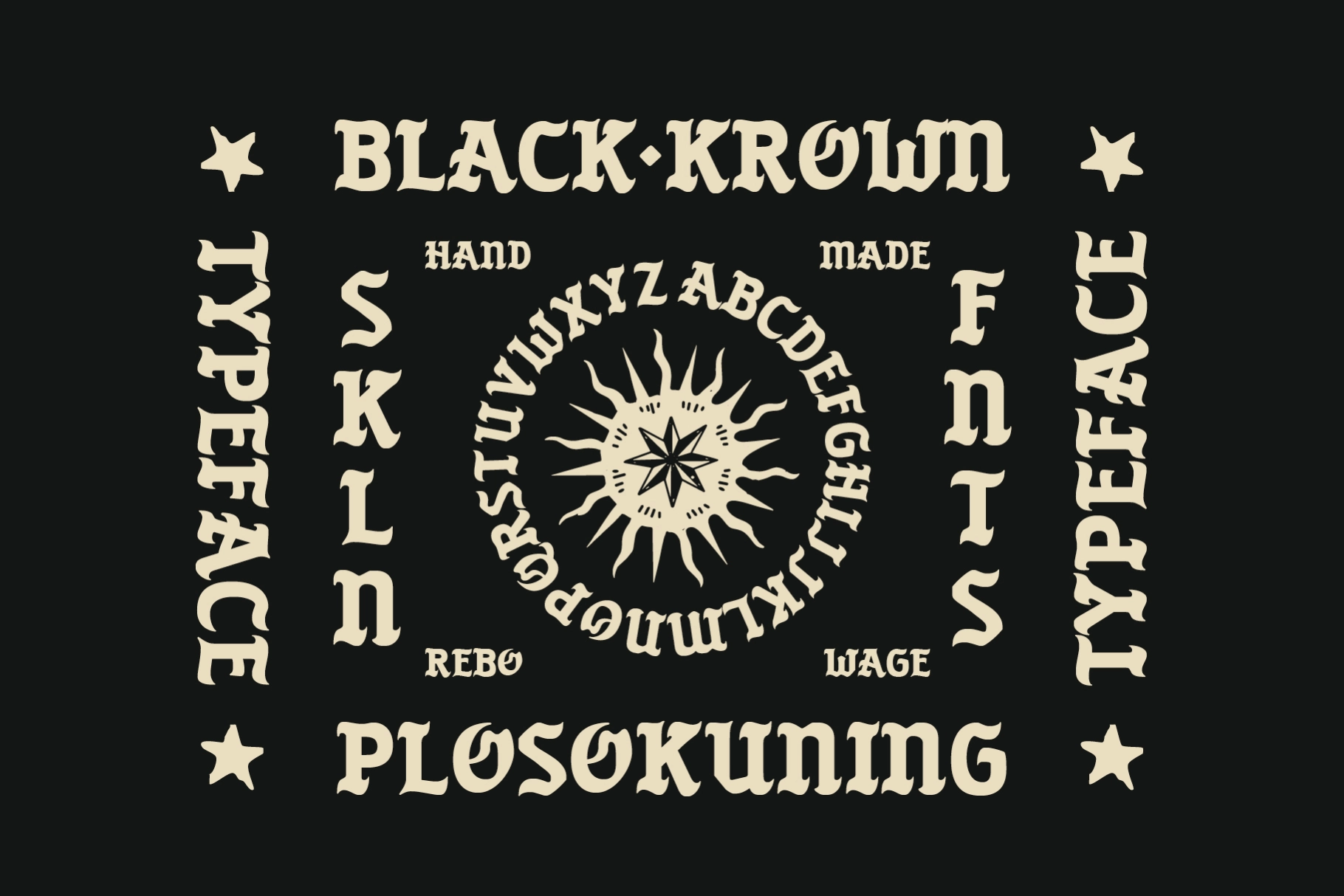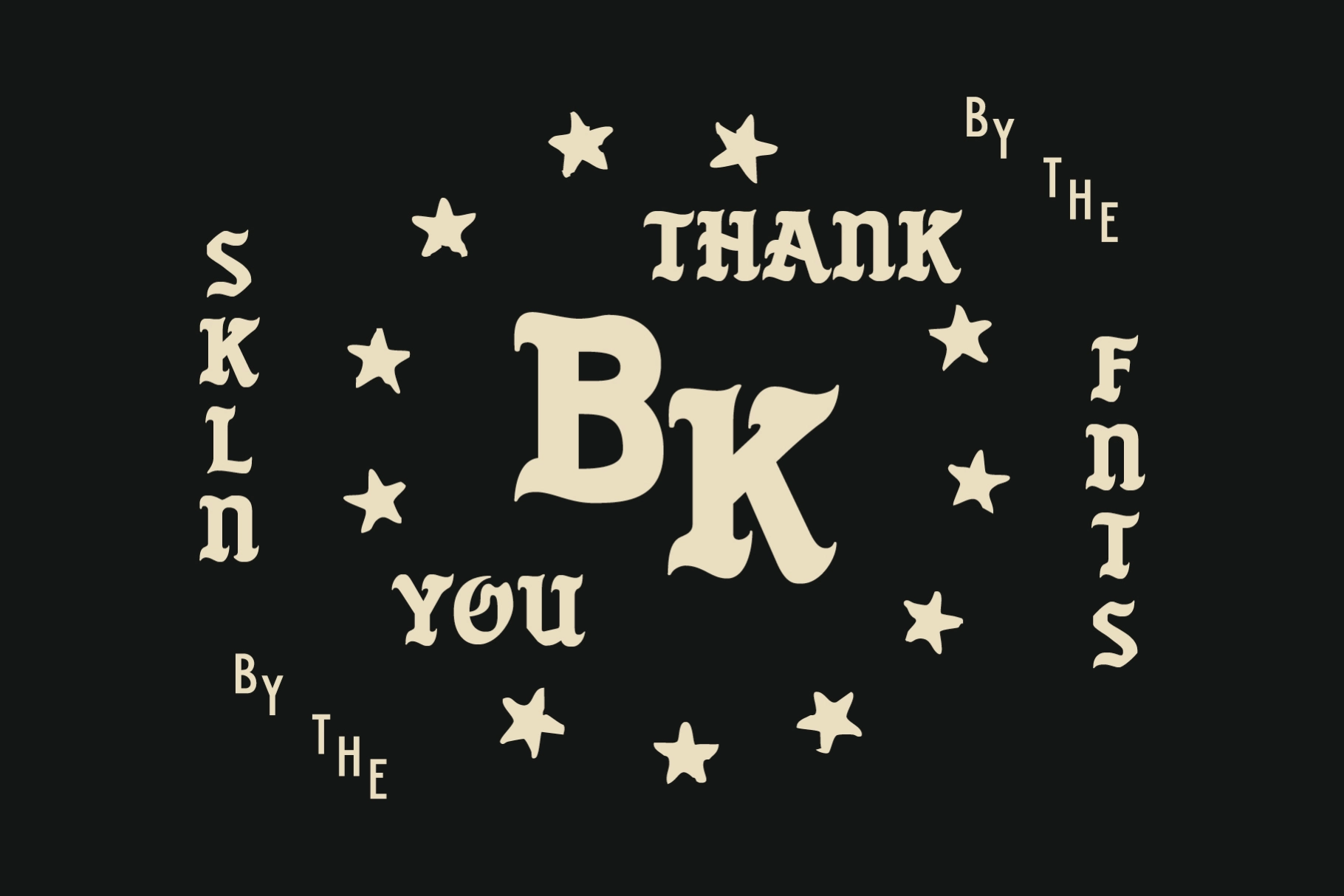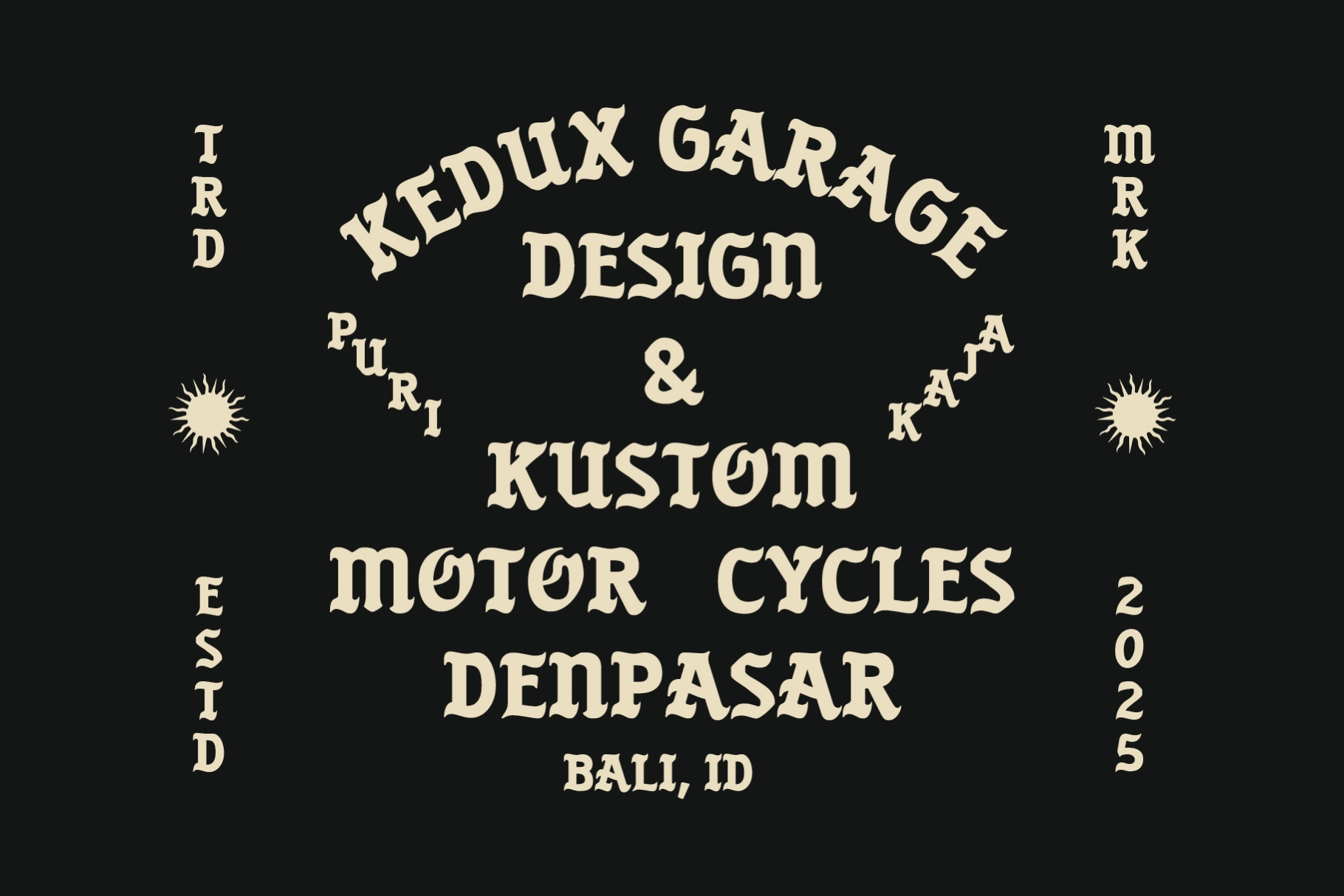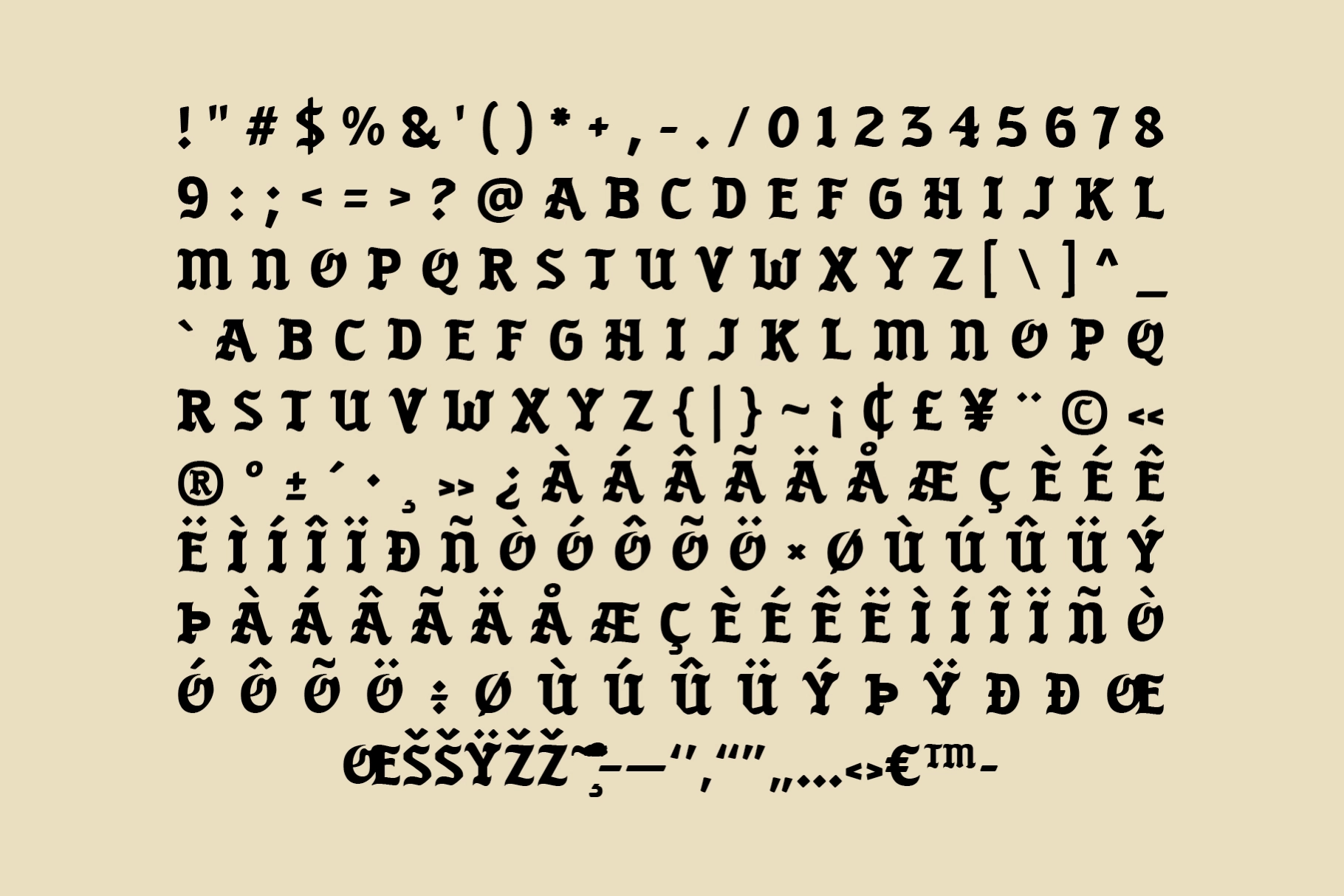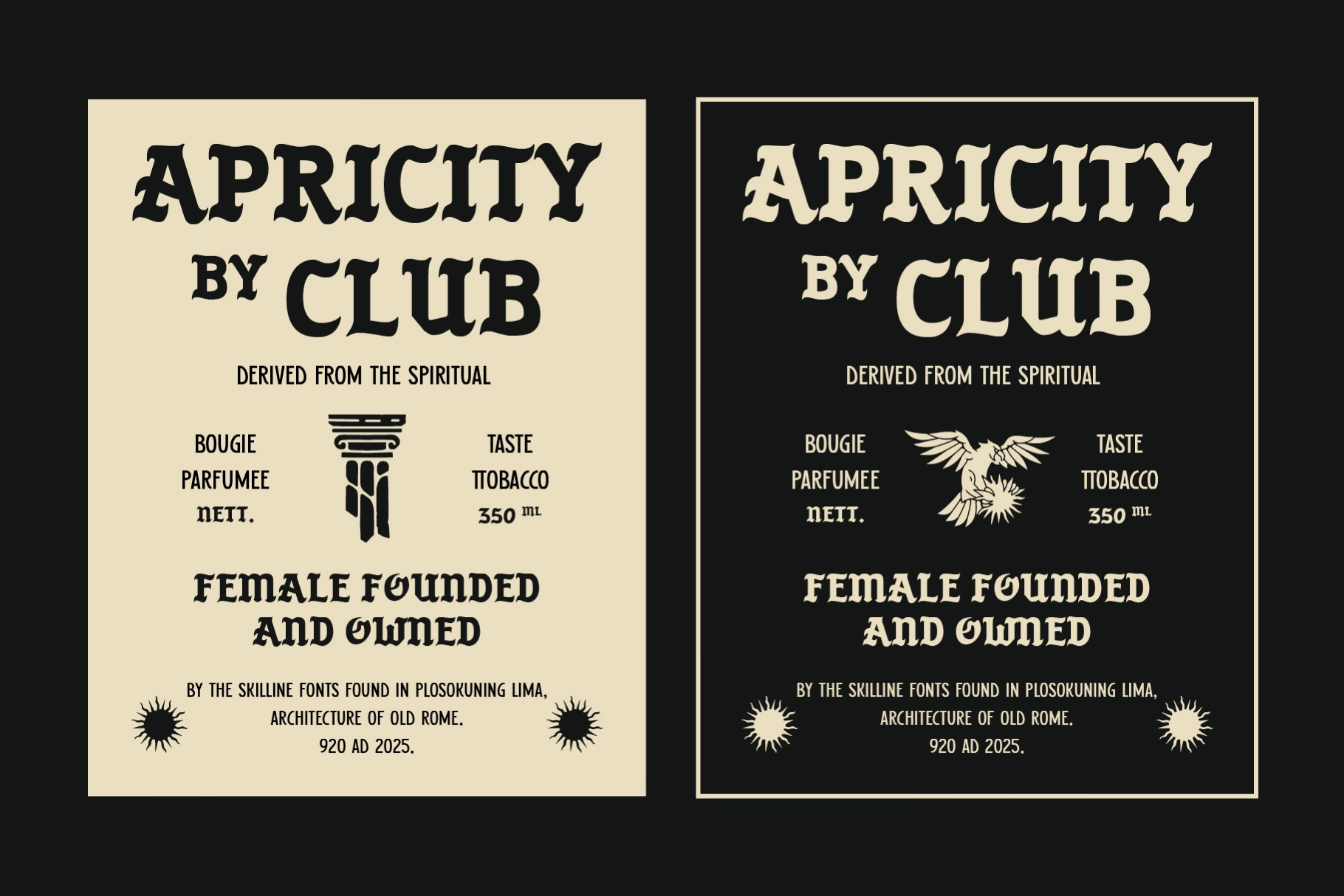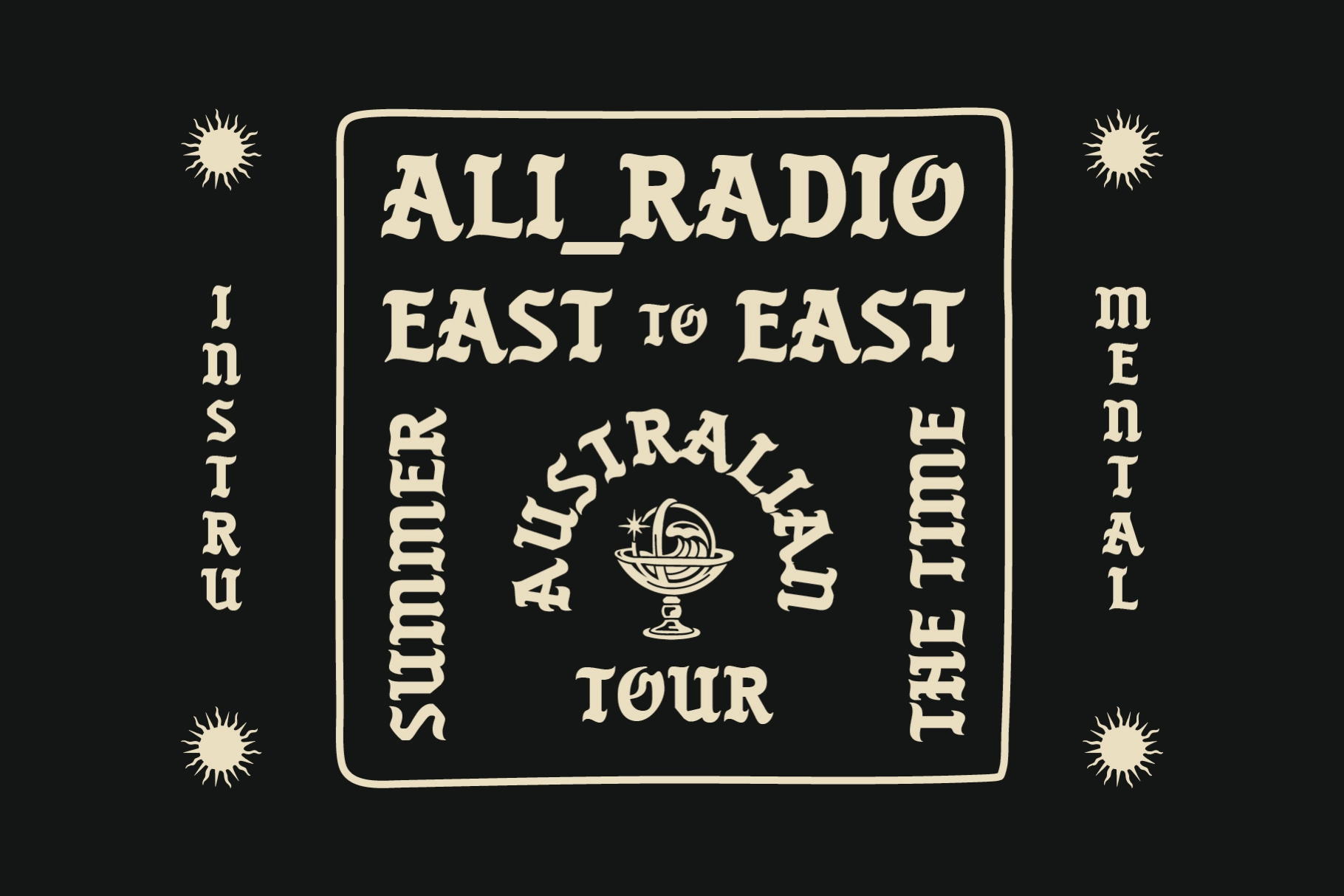
SFC Black Krown
Black Krown is a bold handcrafted medieval display typeface inspired by old-world lettering, gothic sign painting, and Javanese artisan motifs. Its sculpted curves, irregular edges, and mystical ornamental personality give every word a sense of rebellion and heritage. Designed for creators who want a striking, ceremonial, and fierce aesthetic, Black Krown brings a unique blend of tribal energy and medieval boldness perfect for logos, apparel, band merchandise, tattoo-inspired graphics, editorial titles, and anything that needs a raw, handcrafted soul.
• All Caps Typeface
• Handcrafted Gothic Letterforms
• Basic Numerals & Punctuation